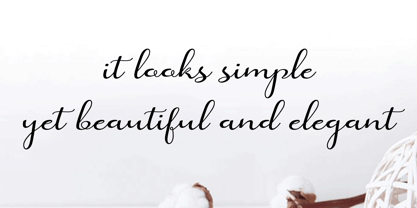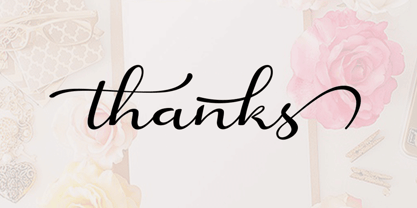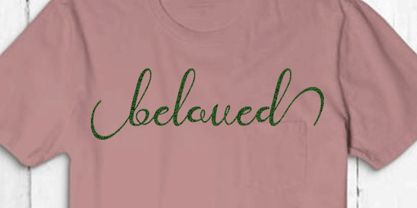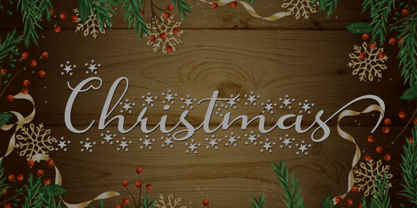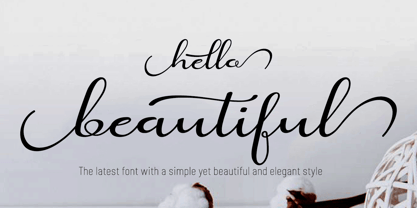
Hello beautiful
by BBA Key
The Hello beautiful Font Family was designed by Marwah and published by BBA Key. Hello beautiful contains 1 styles. More about this family
I Want To Introduce New Fonts Hello beautiful New fresh & modern style with handmade calligraphy, decorative characters and dancing lineage! So wonderful are invitations like greeting cards, branding material, business cards, quotes, posters, and more !! Hello beautiful The comes with 336 glyphs. Alternate characters are divided into several Open Type features such as Swash, Stylistic Sets, Stylistic Alternate, Contextual Alternate. Open Type features are accessible by using Open Type savvy programs such as Adobe Illustrator, Adobe InDesign, Adobe Photoshop Corel Draw X versions, and Microsoft Word. And this font has code PUA unicode (font with special code). So that all alternative characters can be easily accessed by craftsmen or designers. Uppercase & lowercase International signature & symbol Punctuation Support & PUA number Unicode Style Style Alternative Style Style Range 1-6 Contextual Character Variations. If you do not have programs that support OpenType features like Adobe Illustrator and CorelDraw X Versions, you can access all alternative flying machines using Font Book (Mac) or Character Map (Windows)
Designers: Marwah
Foundry: BBA Key